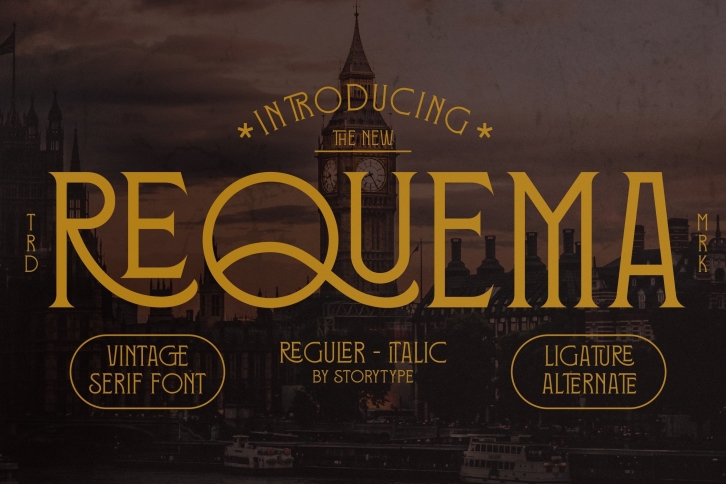
Proudly present REQUEMA Typeface , created by Storytype,
A serif modern and classic typeface that has own unique style & modern look.
This typeface is perfect for an elegant & luxury logo, book or movie title design, fashion brand, magazine, clothes, lettering, quotes, and so much more.